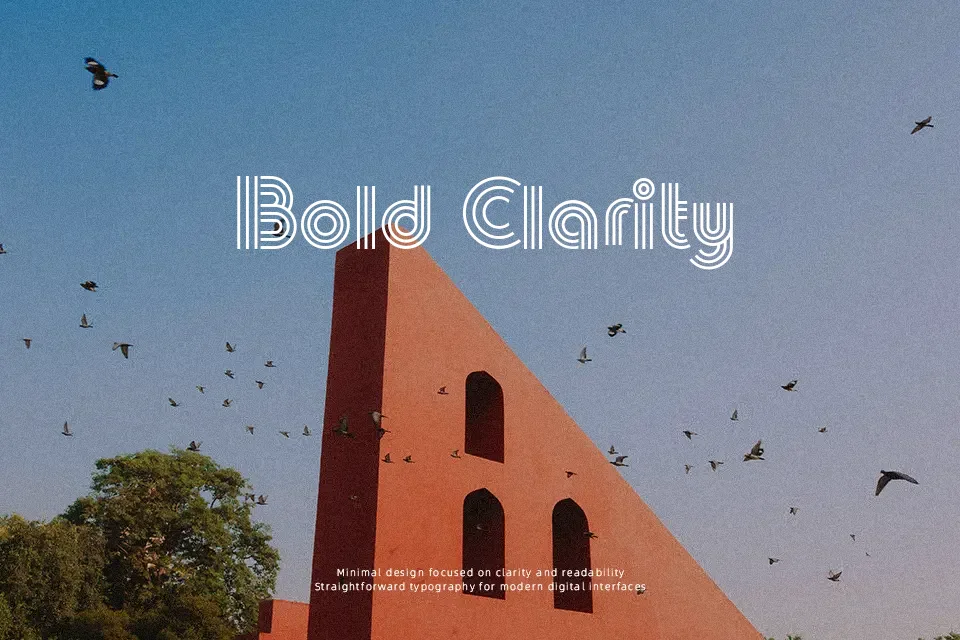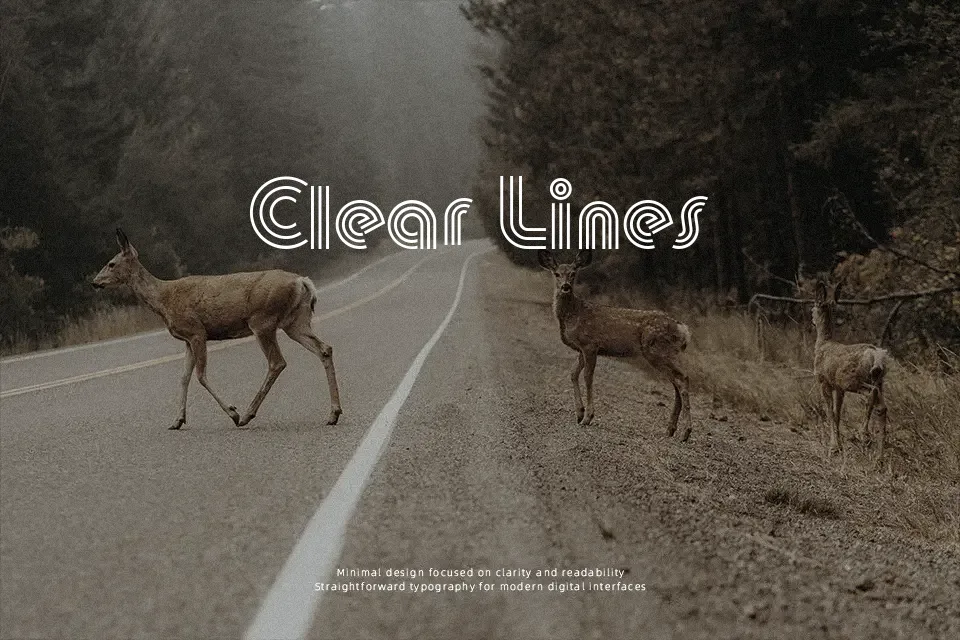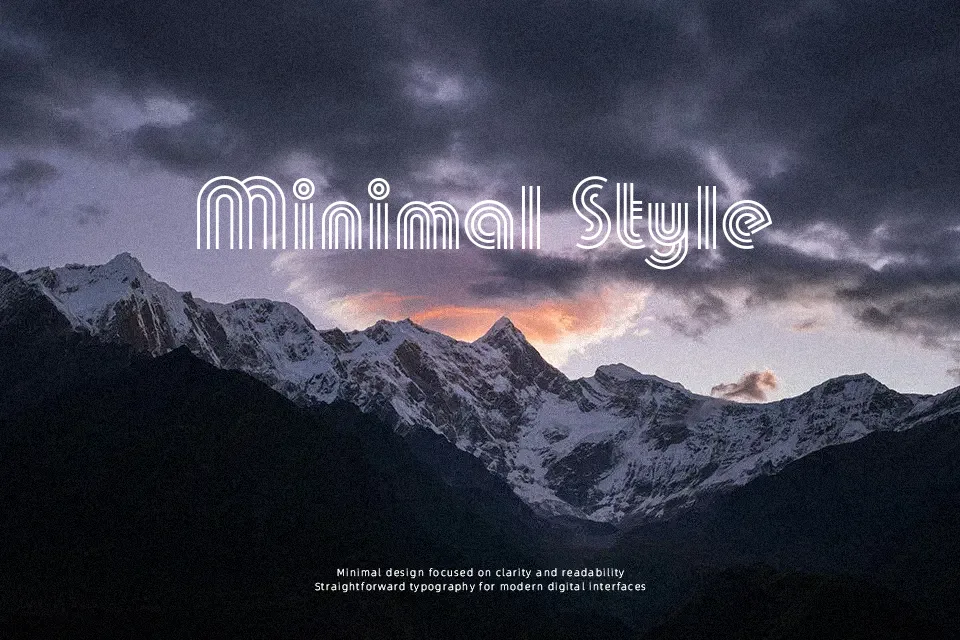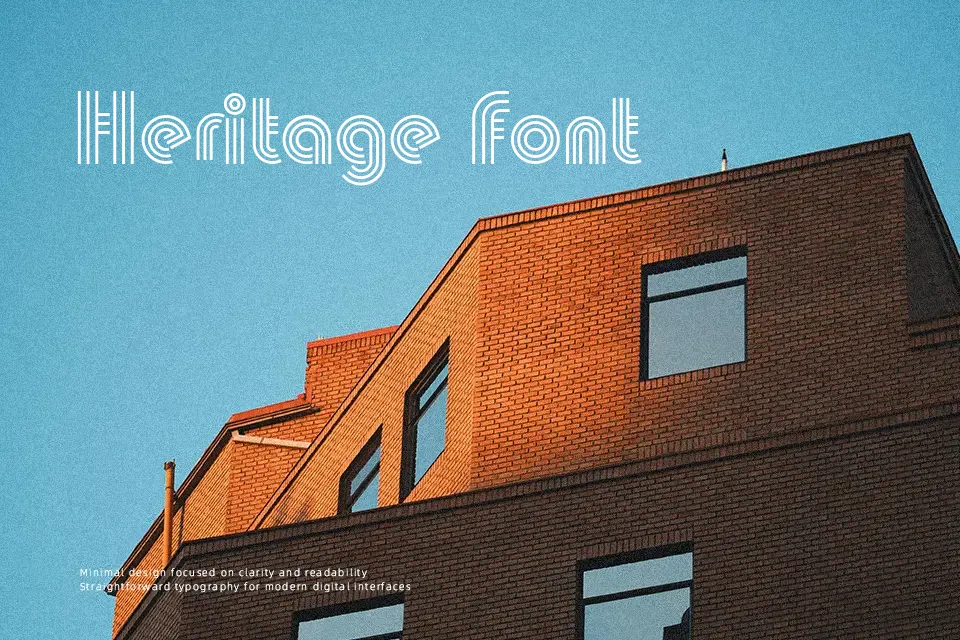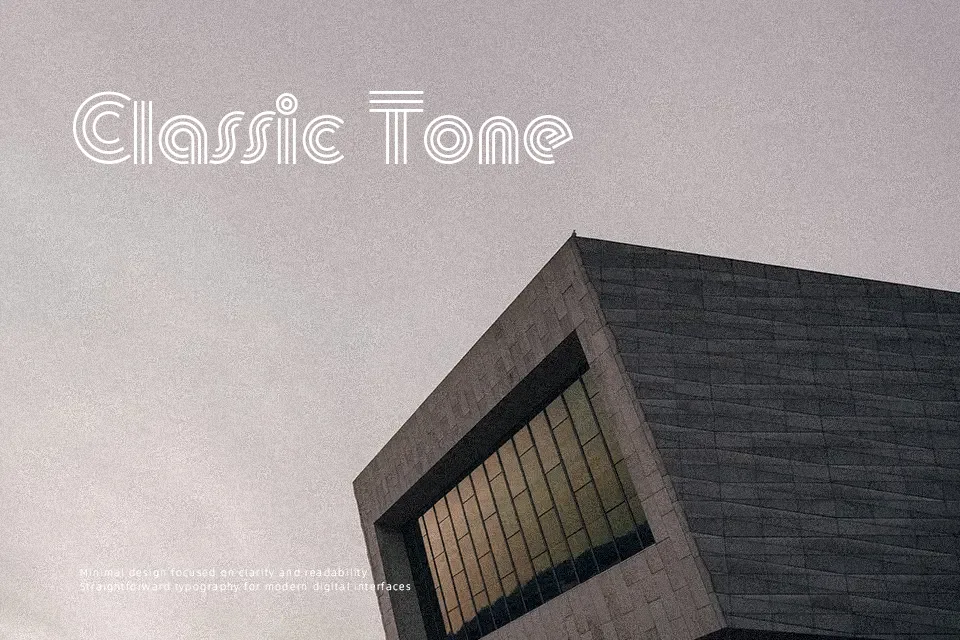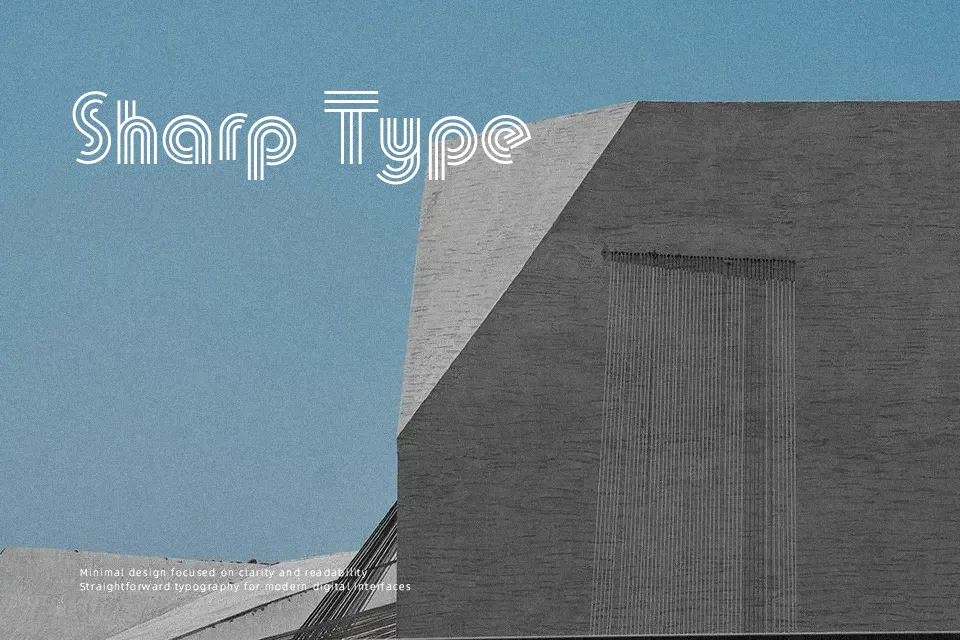
70s Disco Font
There’s an immediate visual loudness to this font — wide, rounded strokes with heavy weight and generous spacing that feel lifted straight from a vinyl record sleeve. The letterforms lean into decorative excess rather than restraint, with stylized curves that evoke neon signs and mirrored dance floors. It works well on short-burst headlines: event posters, retro-themed packaging, or music festival graphics where the era-specific energy is the entire point. That said, readability drops sharply at small sizes, and the ornamental character makes it genuinely difficult to use beyond display contexts. Anyone expecting versatility across body copy or mixed-weight layouts will be disappointed — this is a one-mood font, and it knows it.
– Retro party or nightlife event flyers
– Music album covers with a 1970s aesthetic
– Themed merchandise or apparel graphics
– Headline text on nostalgia-driven social media content
– Small print or body text at any size
– Professional or corporate brand applications
– Multilingual layouts requiring extended character support
– Projects needing tonal range beyond retro/celebratory
Perfect for advertising, branding, and headline, with a bold and decorative style.